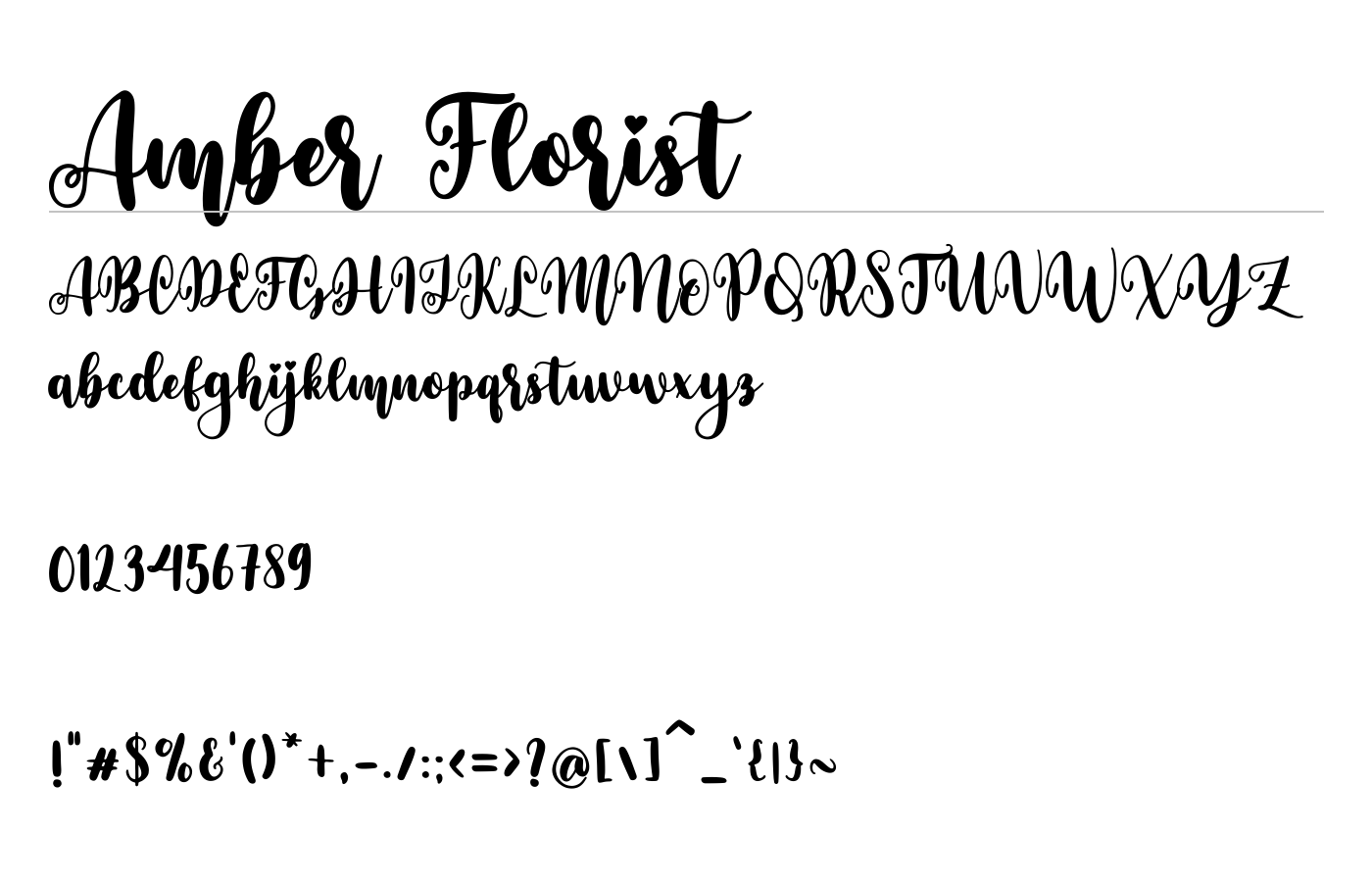
Amber Florist is a charming script font with a playful and elegant personality, featuring smooth, flowing strokes and whimsical heart-shaped details that add a delicate touch. Its moderately bold weight and balanced letter spacing make it perfect for branding, invitations, and decorative headlines where a warm, friendly, and creative feel is desired. This font works beautifully in floral, wedding, and boutique contexts, bringing a handcrafted, stylish appeal to any design.
Amber Florist Font
About Amber Florist Font